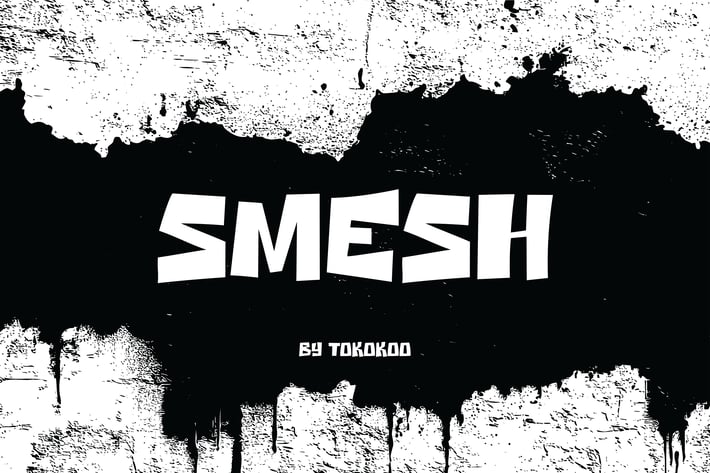
Sport Font - Smesh
SMESH - Loud, Rough, Gritty, Urban Display Typeface
SMESH is a grungy, high-impact display typeface designed for urban rebels and disruptive creators. With a cracked, distorted texture and brutal block construction, its harsh terminals and thick contrast shout with defiance. This font brings a gritty, unapologetic vibe that matches zines, riot posters, anti-establishment branding, and rebellious youth media. Visually, it fuses distressed lettering with strong vertical stress, making each character feel torn from a punk wall sticker or alley billboard.
From dystopian film posters and underground rock flyers to aggressive branding for streetwear or rebellious apps, SMESH brings unapologetic intensity. If you want to make a statement—loud, raw, and real—this font rips through silence like static in the streets. Perfect for Halloween events, tattoo brands, protest campaigns, urban apparel drops, and noisy headline designs, it adds unmistakable energy and chaos to any design.
Key Features
Urban-Edge Lettering That Speaks Volumes:
- Cracked structure for authentic distressed, spray-painted or photocopied feel
- Heavyweight construction for impact-driven designs
- Sharp contrast and solid rhythm in block forms
Engineered for the Boldest Projects:
- Great for dystopia posters, album covers, dark movie intros, protest art
- Enhances tattoo flyers, grunge editorials, alt-music events, or horror game UIs
- Adds immediate tension, edge, and emotional resonance to static visuals